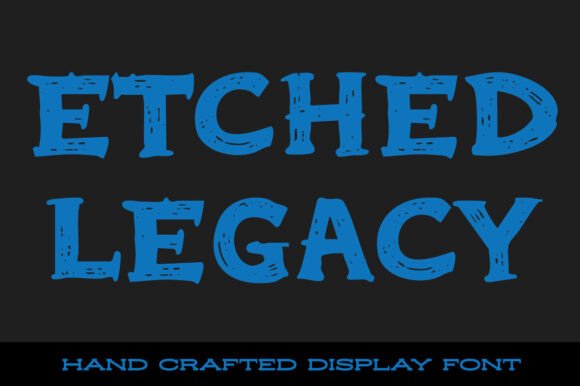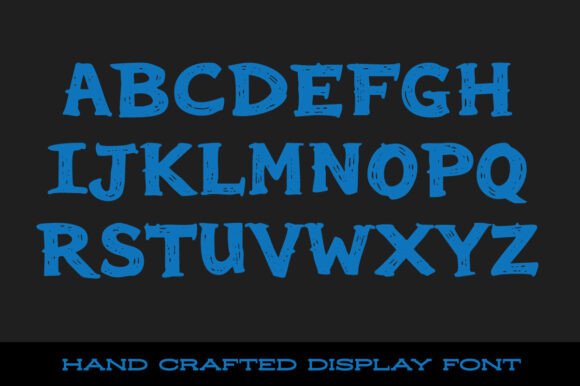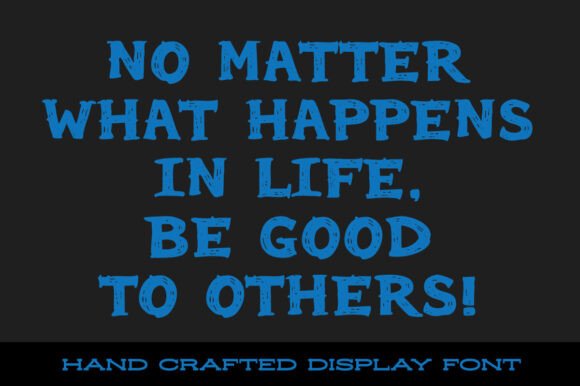
Etched Legacy Font: Bold Vintage Typography for Timeless Branding
About the Etched Legacy Font
Presenting Etched Legacy Font, a unique and stylish typeface that will make your work stand out. Etched Legacy is a vintage-style distressed font that captures the timeless artistry of classic tattoo designs. With its bold lines and subtle imperfections, this font evokes the weathered charm of an era when ink told a story. Perfect for branding, posters, and designs that seek a balance between bold tradition and modern edge, Etched Legacy leaves an unforgettable mark, like the lasting impressions of ink on skin.
Etched Legacy thrives in headline applications, short-form text on posters, and branding projects that demand a strong, vintage aesthetic. Its distressed texture works exceptionally well for logos, packaging for premium products (e.g., whiskey, leather goods), and short, impactful marketing materials. Avoid using it for body copy or lengthy paragraphs; its weighty design reduces readability over extended text.
The font’s core personality is bold and rebellious, yet with a sophisticated undertone. It projects a sense of heritage and timelessness.
Pairing Etched Legacy with a clean sans-serif like Montserrat or a geometric sans-serif such as Futura adds a contemporary counterpoint to its vintage feel, creating a balanced design. For a more traditional feel, consider pairing it with a classic serif such as Garamond or a slightly more modern serif like Playfair Display.
Etched Legacy Font Usage Examples
Etched Legacy Font Example